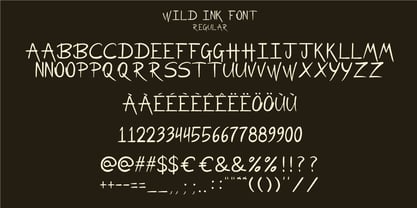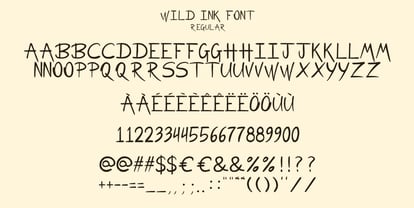
Wild Ink
por Les Mauvaises
A família de fontes Wild Ink foi desenhada por Carla Chevalier e publicada pela Les Mauvaises. Wild Ink contém 1 estilos. Saiba mais sobre esta família
With Wild Ink Font Regular, each character breathes the spontaneity of a handwritten stroke, infused with the energy of a pen dipped in fresh ink.
This font immediately captures attention thanks to its authentic, irregular, and lively style. Its artisanal feel gives your projects a distinctive, creative, and original charm—far removed from clichés and uniformity.
Wild Ink Font transforms your creations into captivating narratives. Each character has soul—a unique stroke that naturally conveys emotion and individuality.
Designers: Carla Chevalier
Fundição: Les Mauvaises